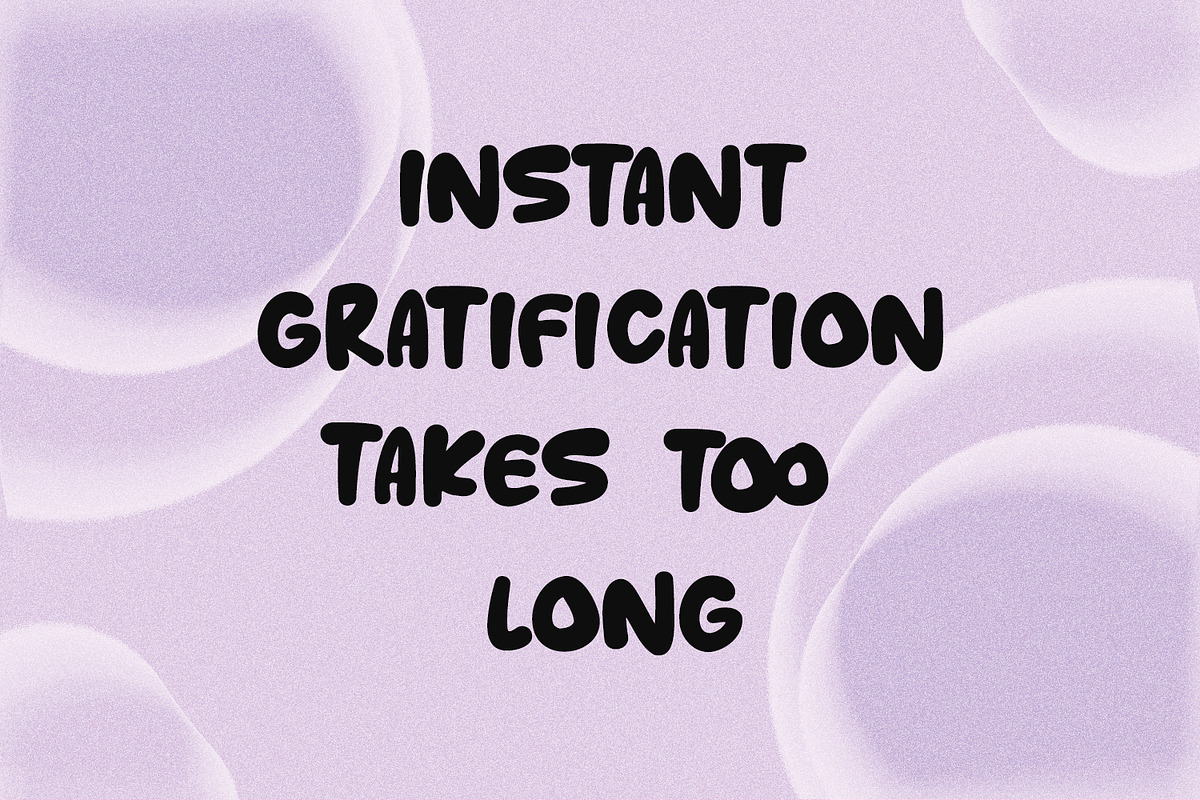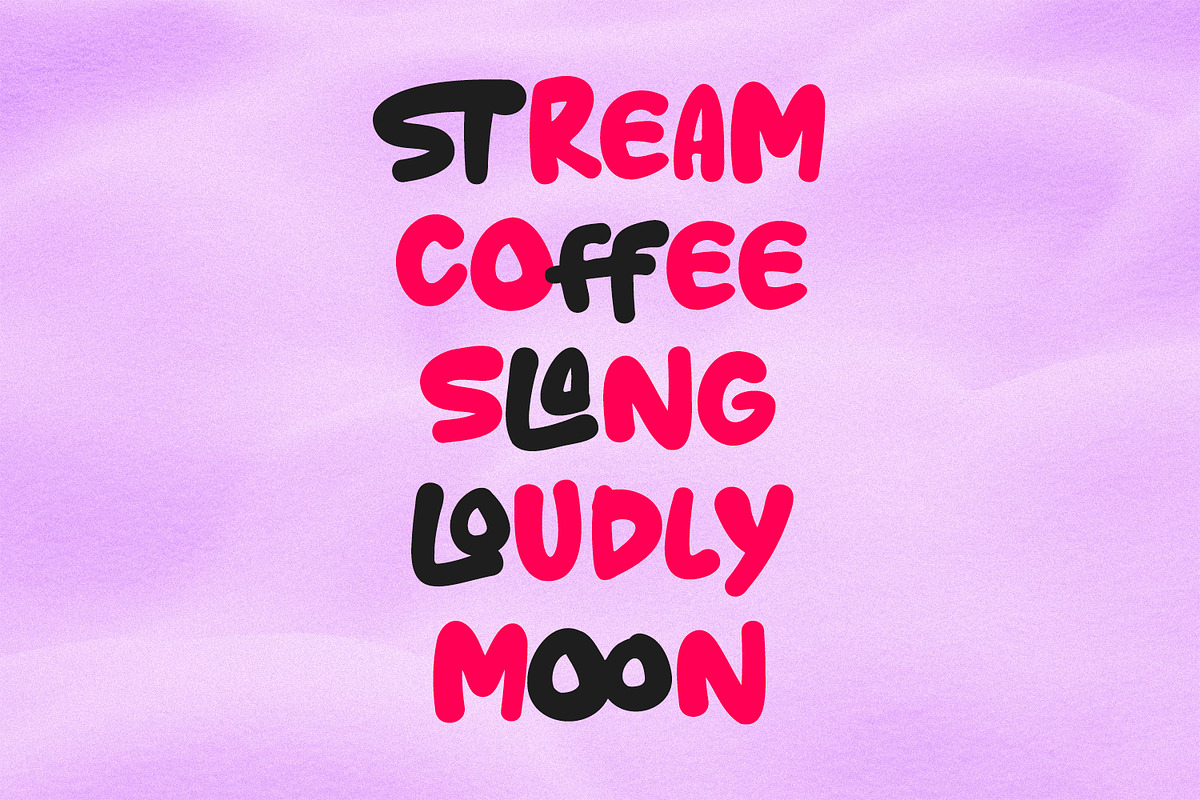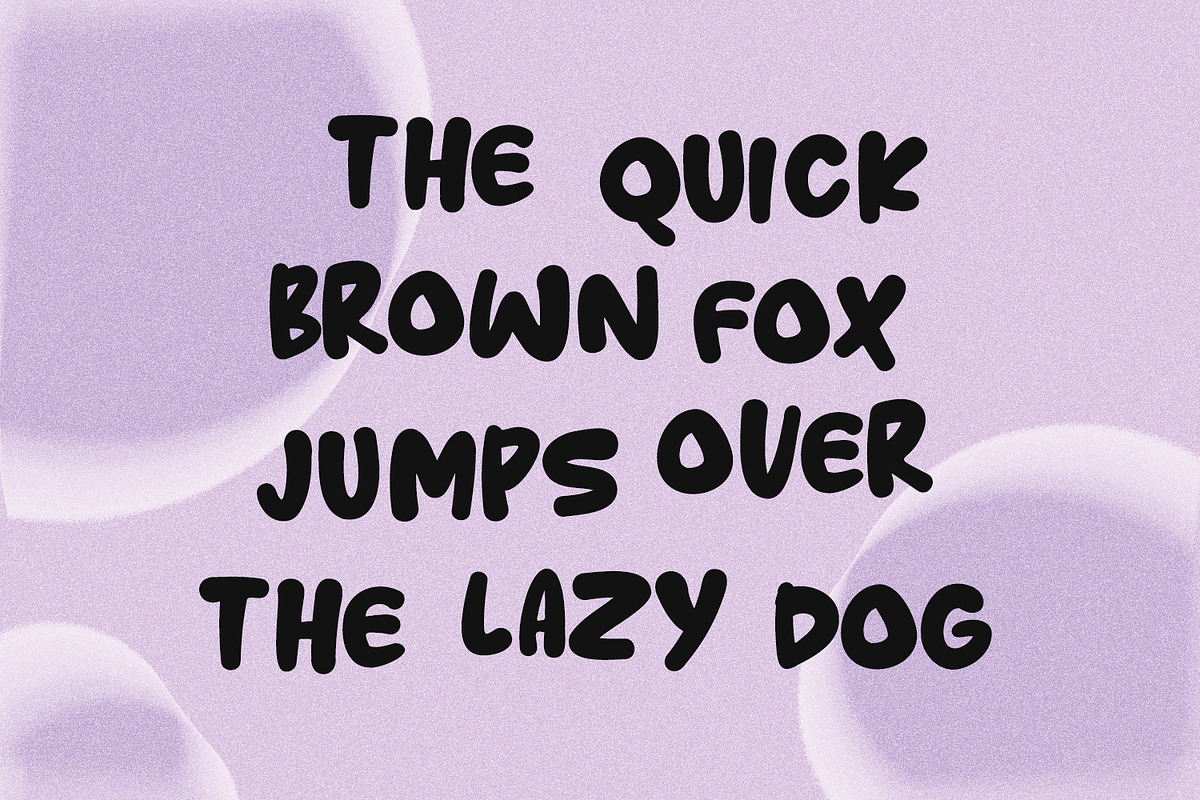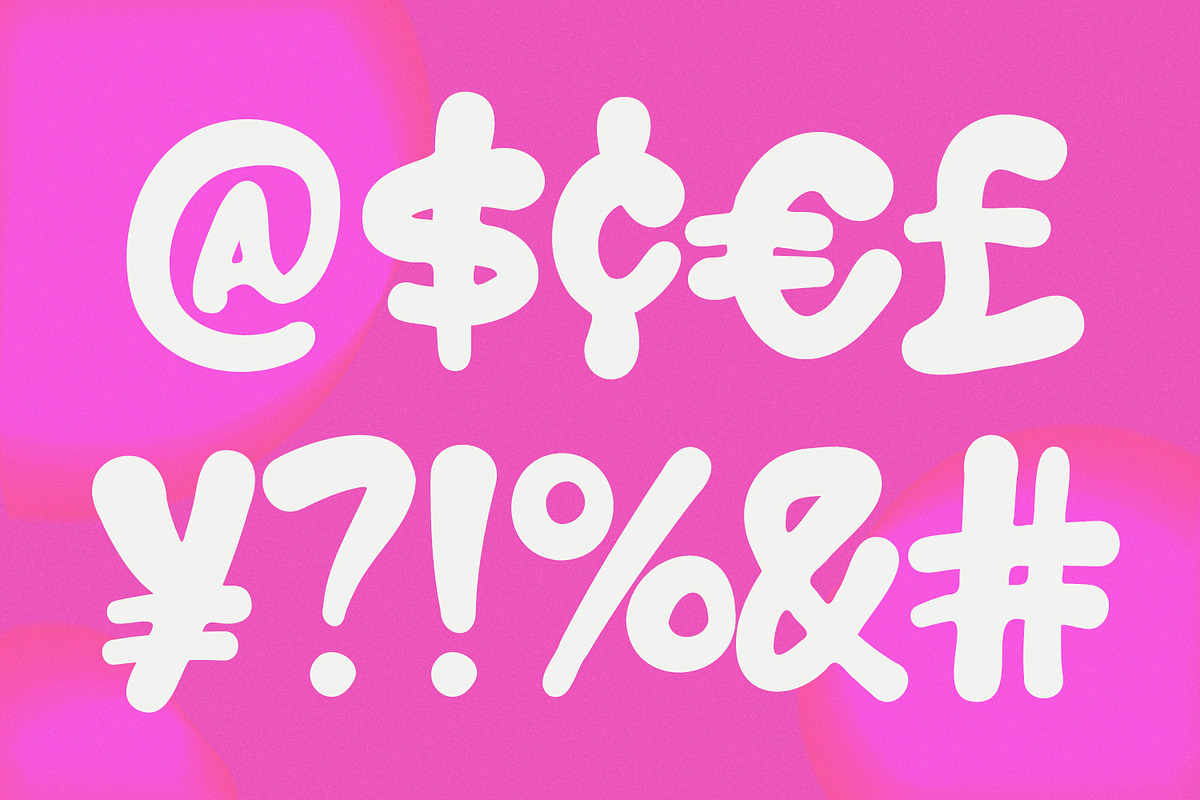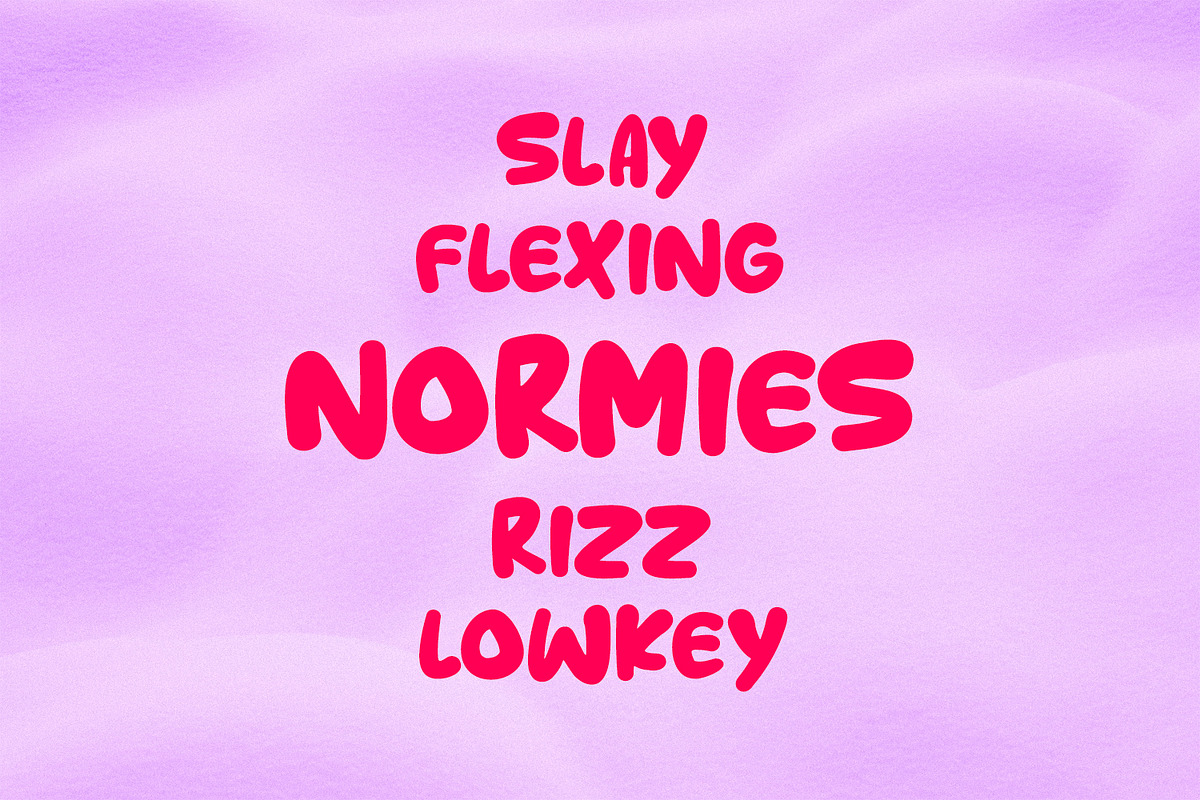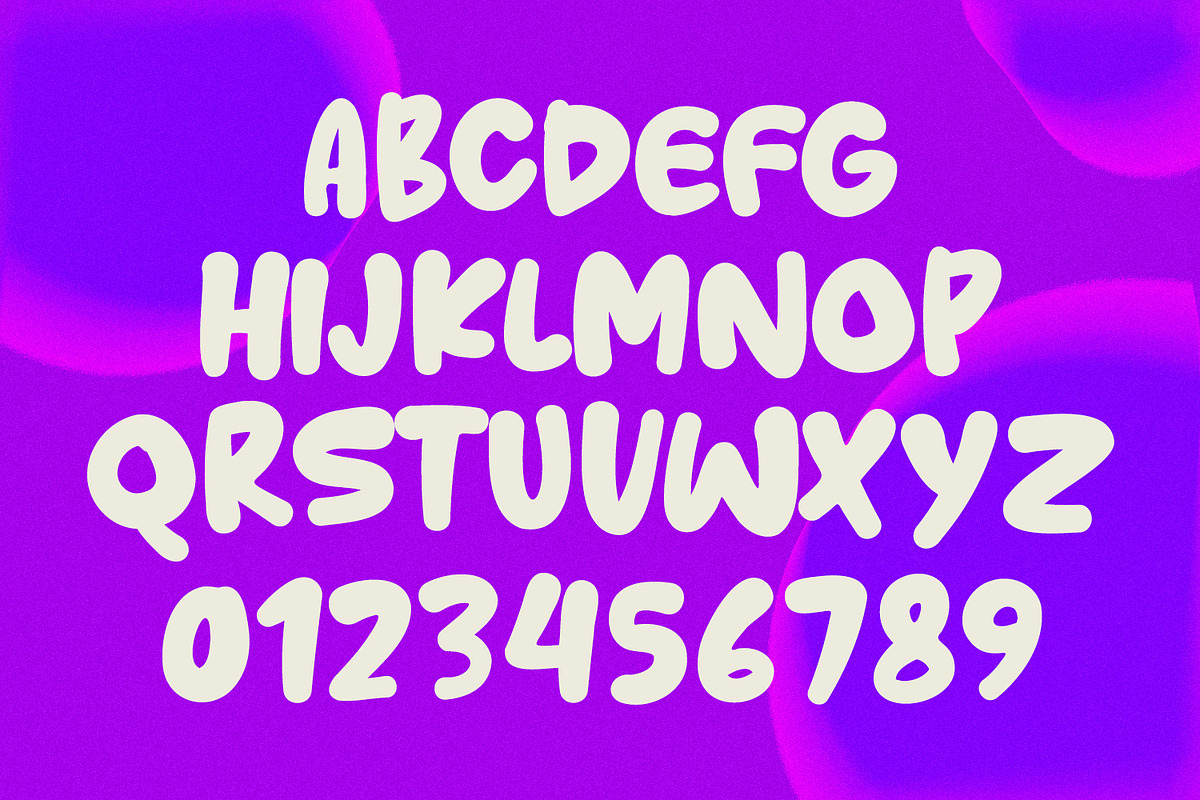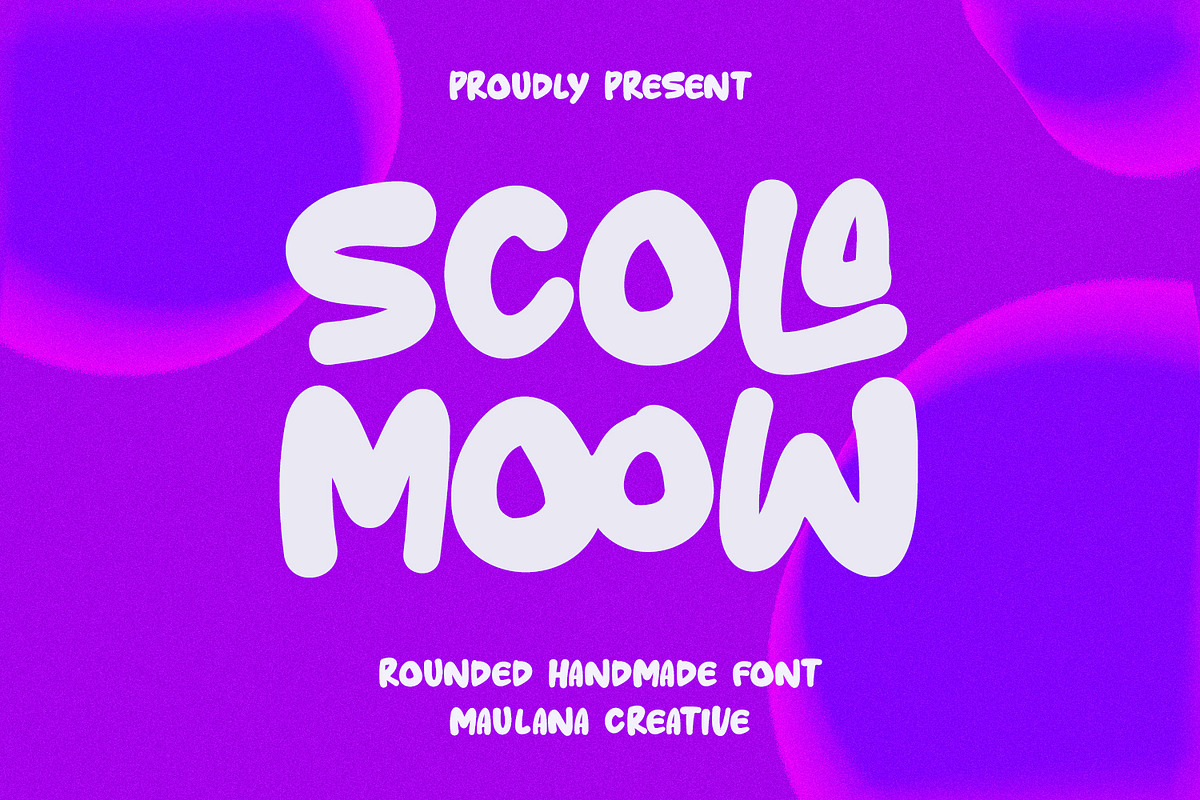
Scola Moow Rounded Handmade Handwrit
Scola Moow is a rounded handwritten font. With bold stroke, fun character with a bit of ligatures. To give you an extra creative work. Scola Moow font support multilingual more than 100+ language. This font is good for logo design, Social media, Movie Titles, Books Titles, a short text even a long text letter and good for your secondary text font with sans or serif. Make a stunning work with Scola Moow font.